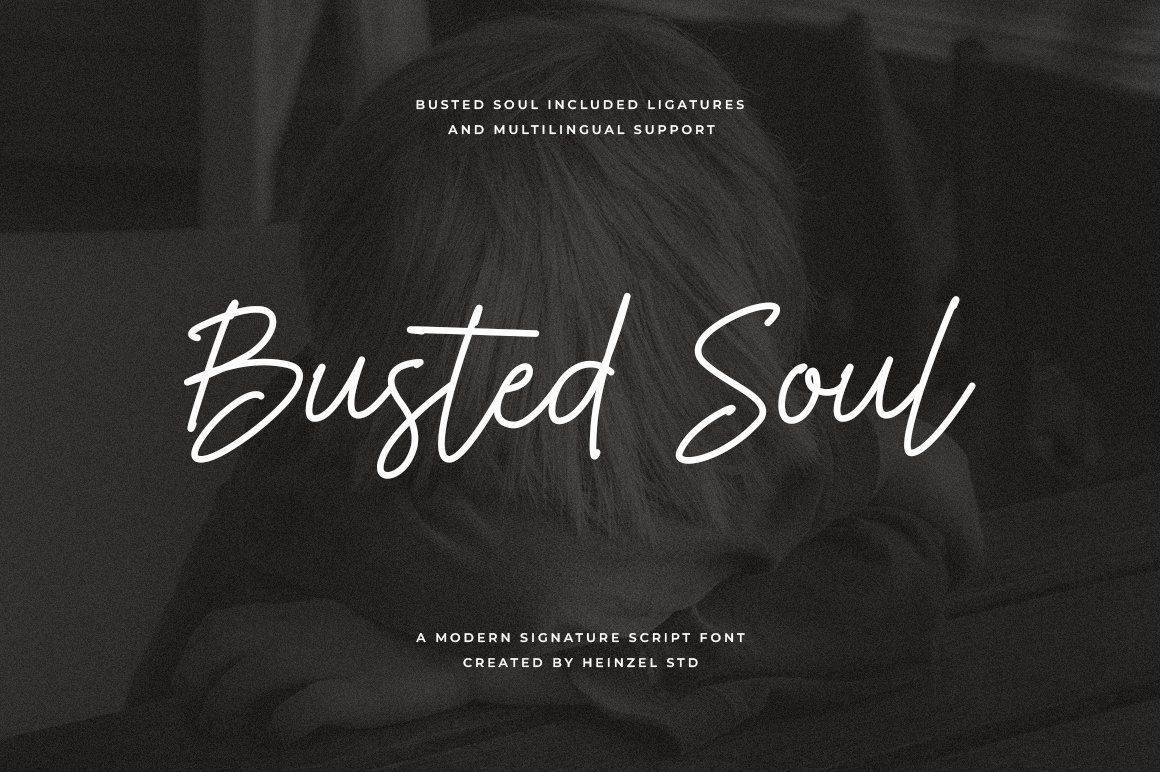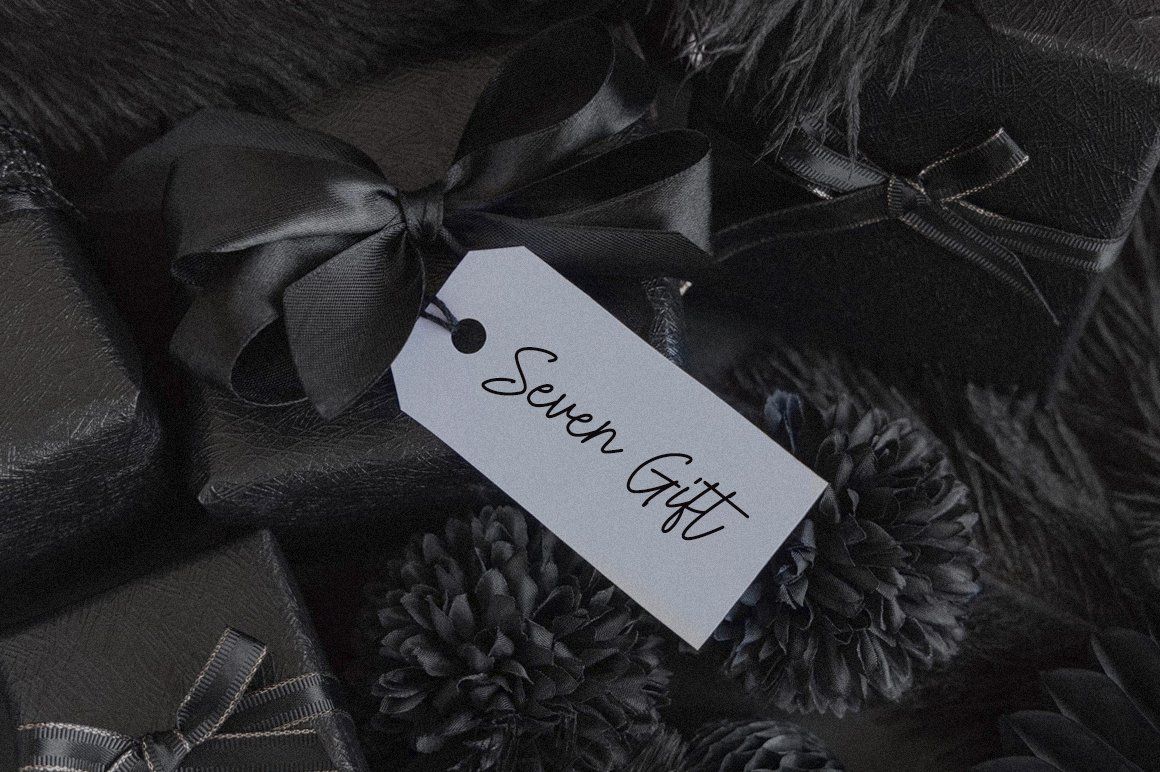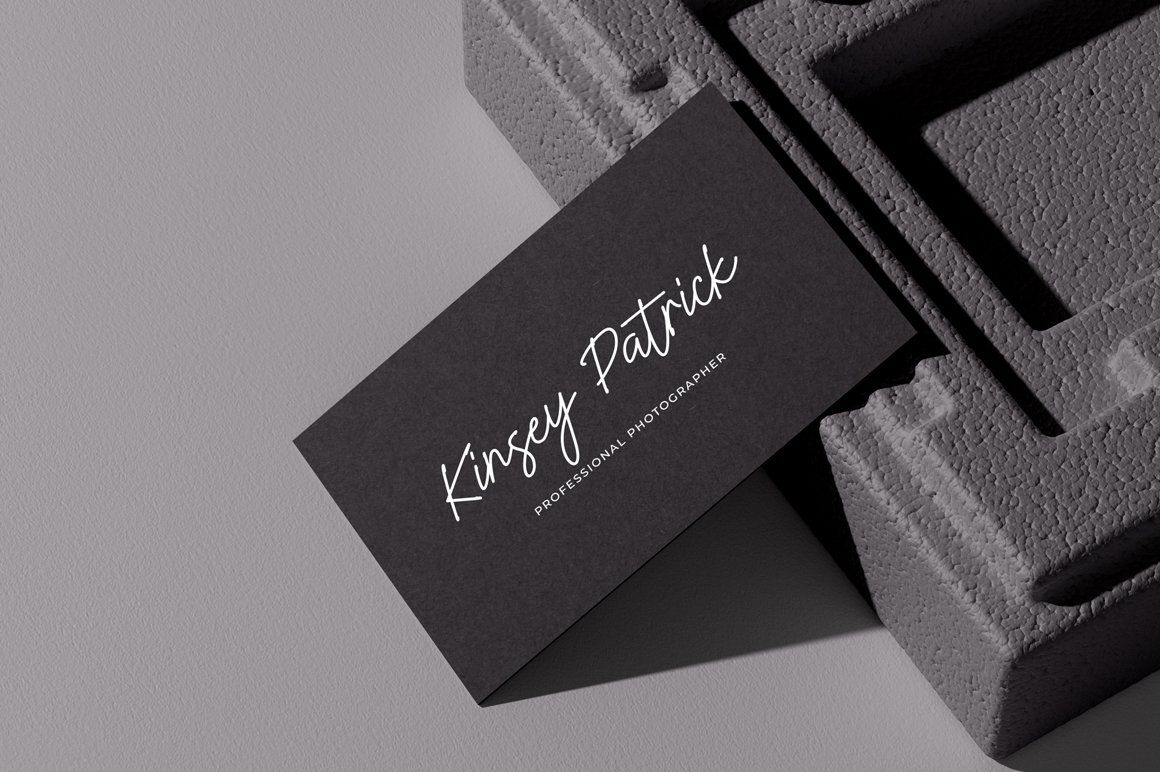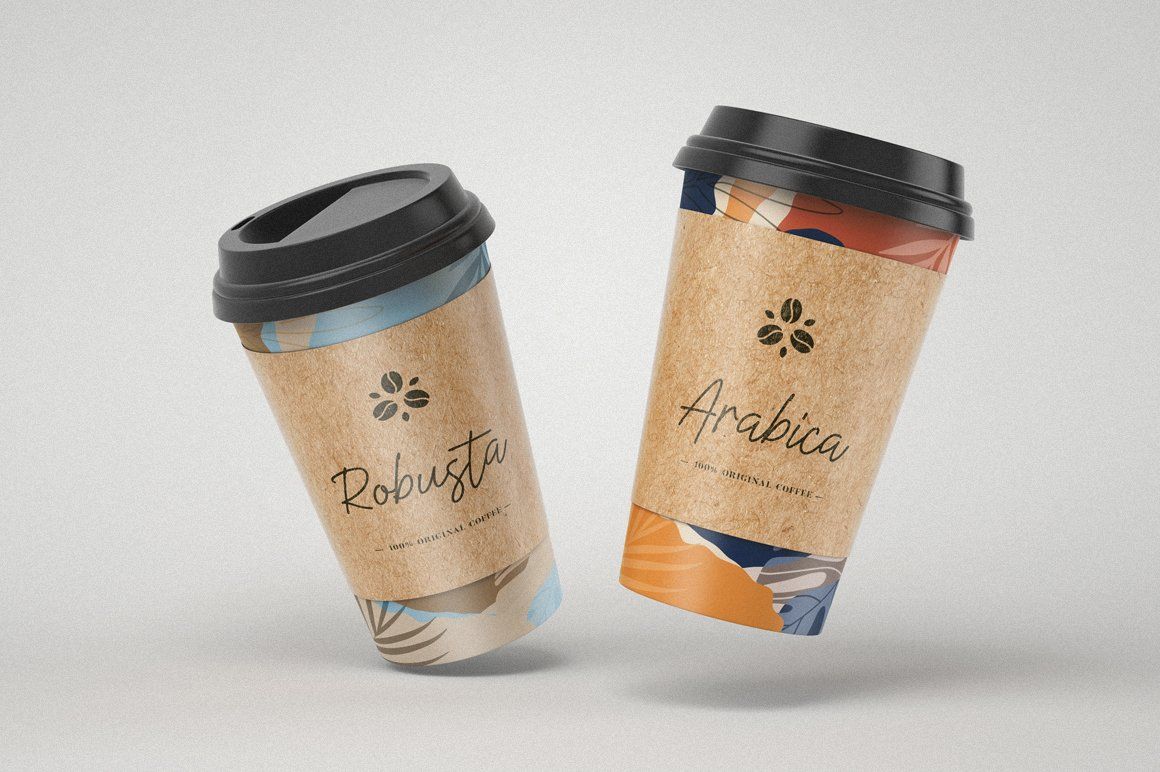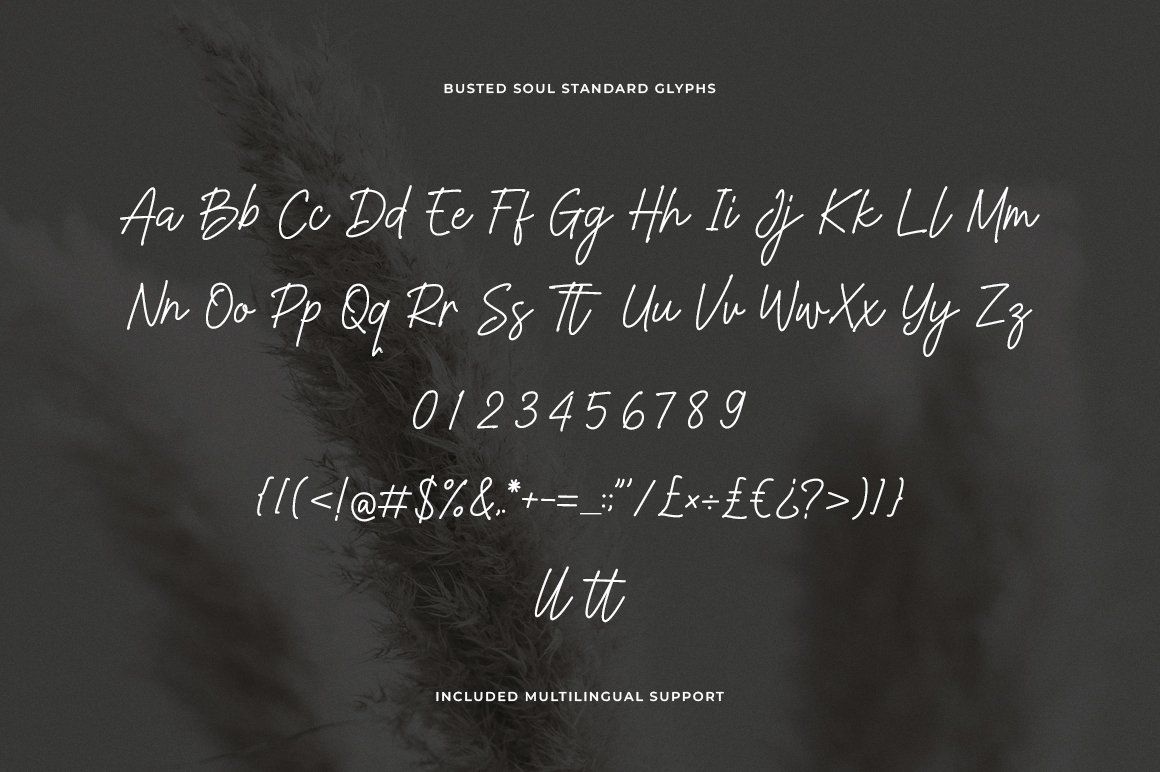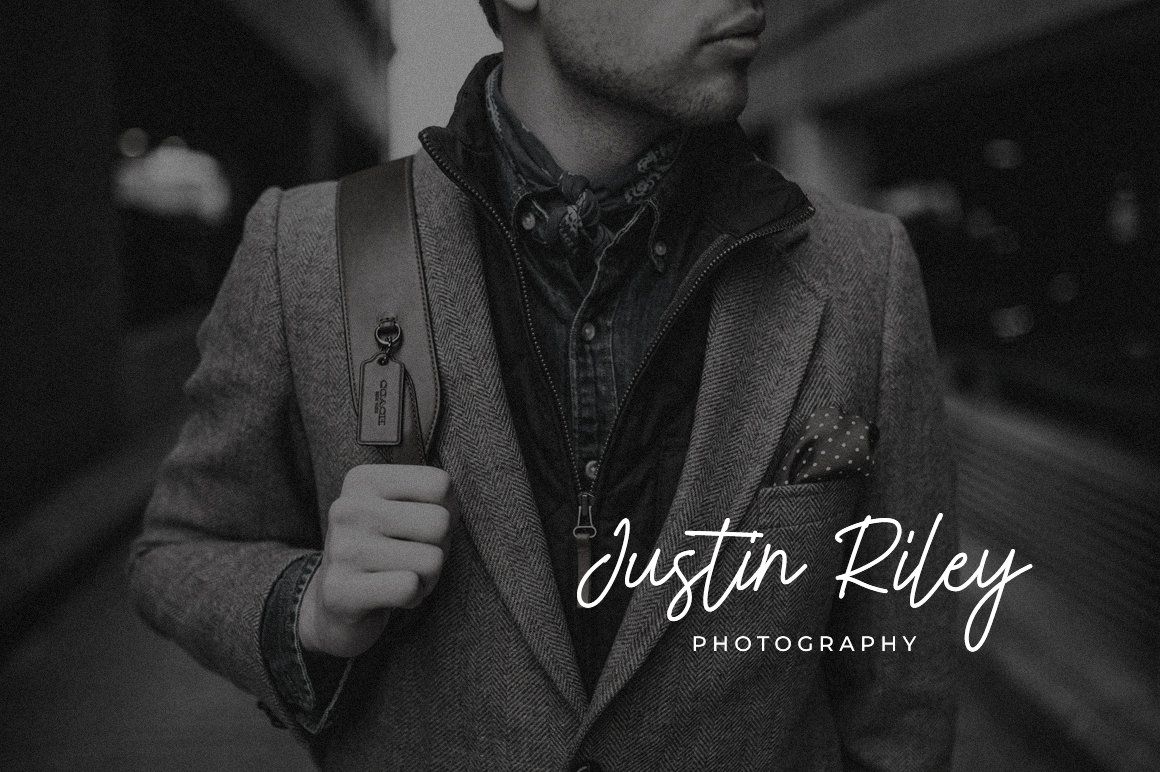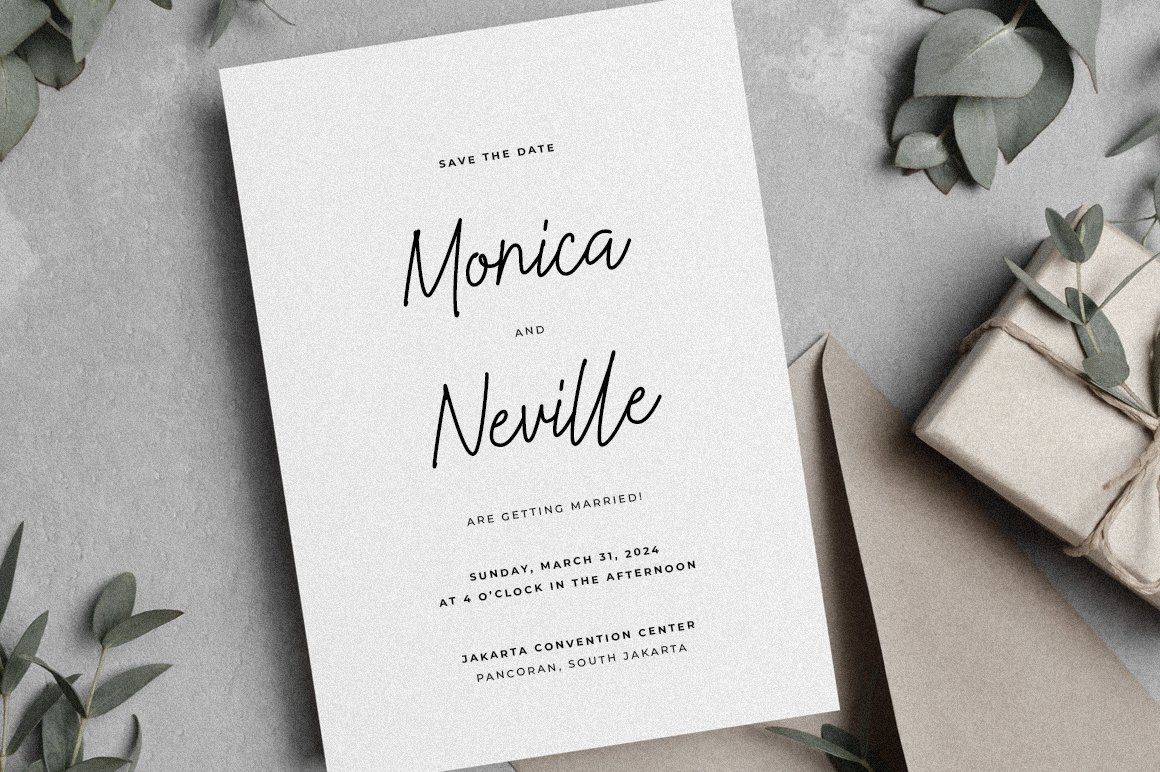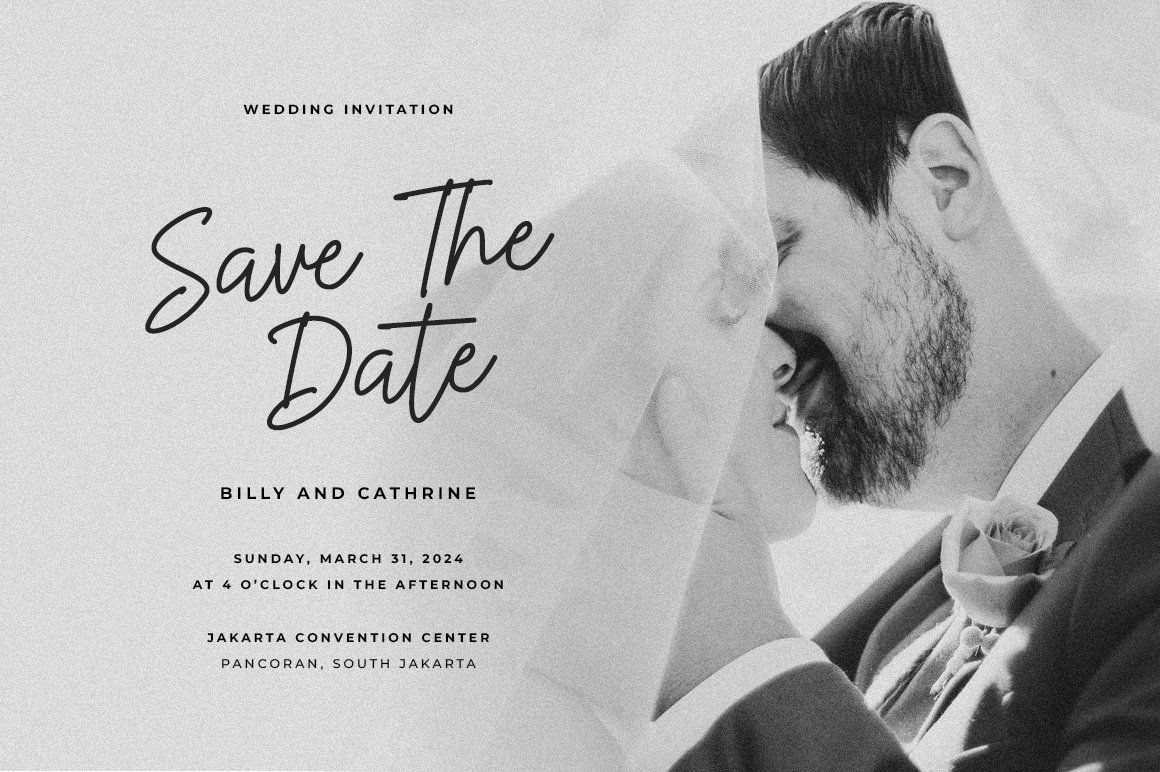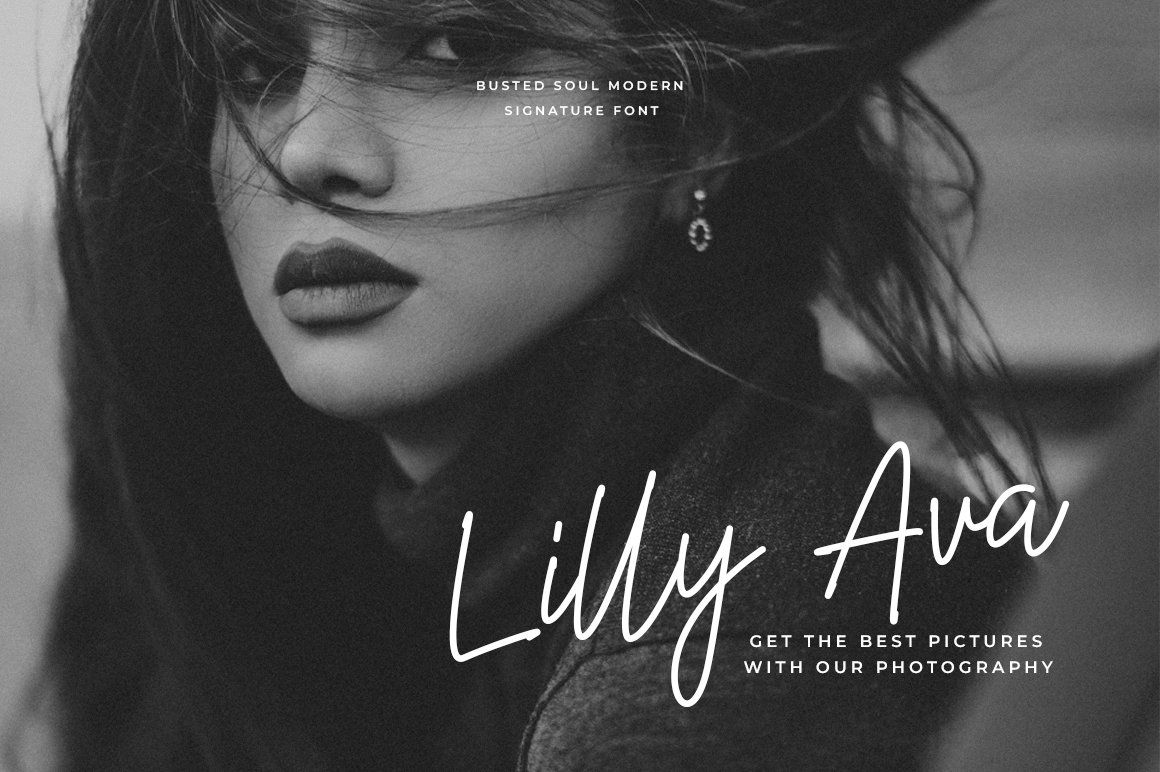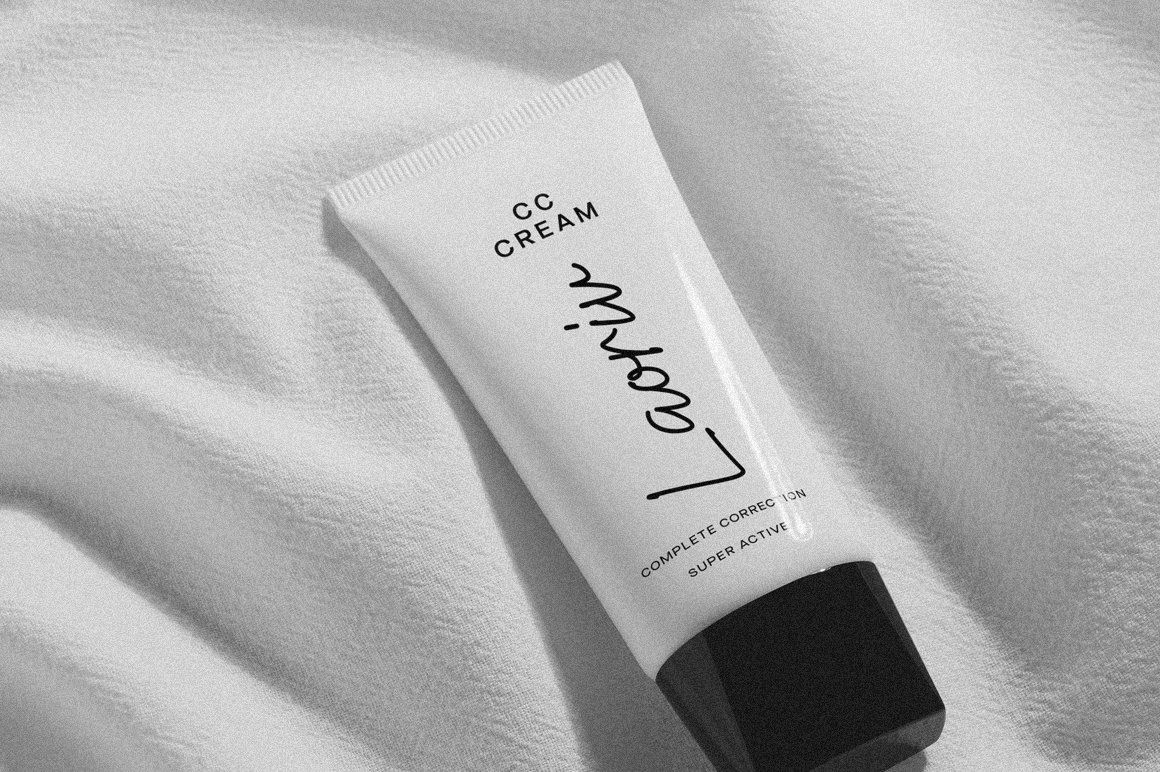
Busted Soul is a modern signature script font, described by an elegant touch, perfect for your favorite projects. It looks stunning on wedding invitations, thank you cards, quotes, greeting cards, logos, business cards and every other design which needs a handwritten touch. Fall in love with its incredibly distinct and timeless style and use it to create spectacular designs!